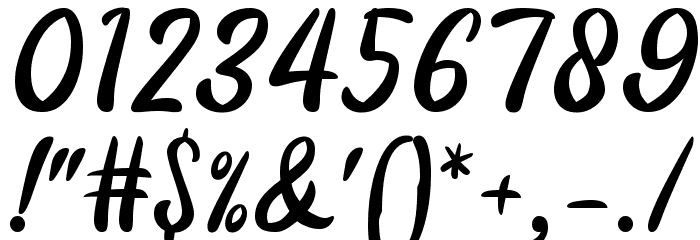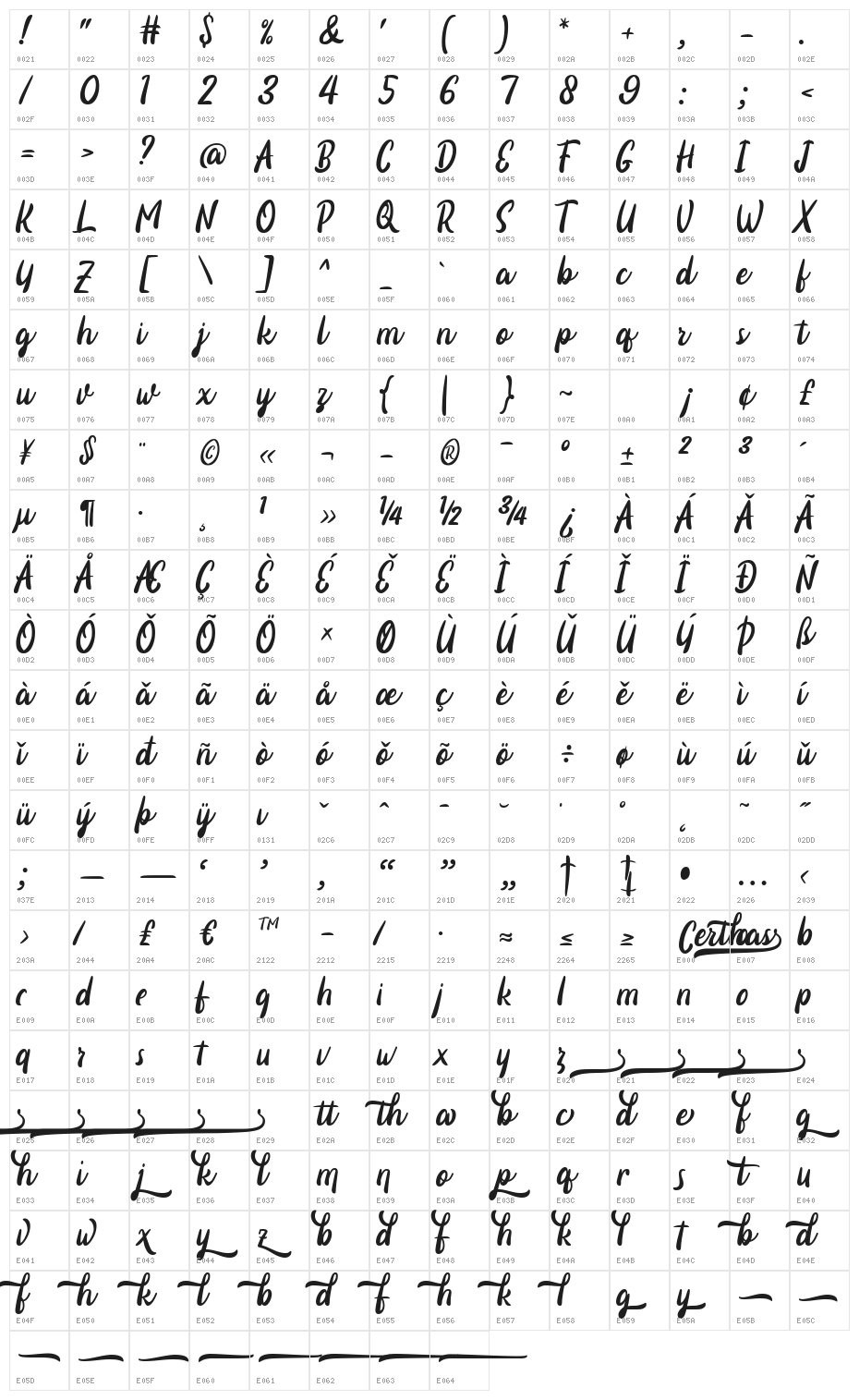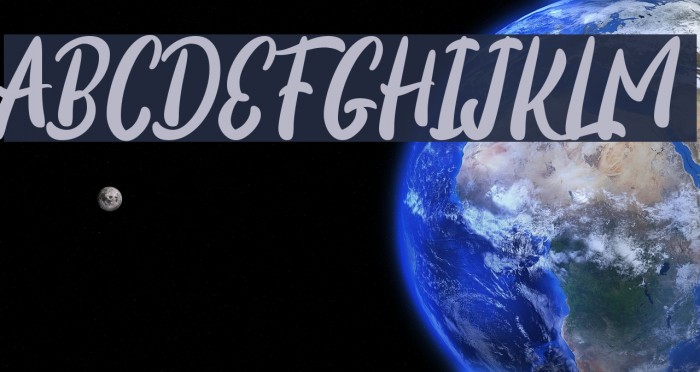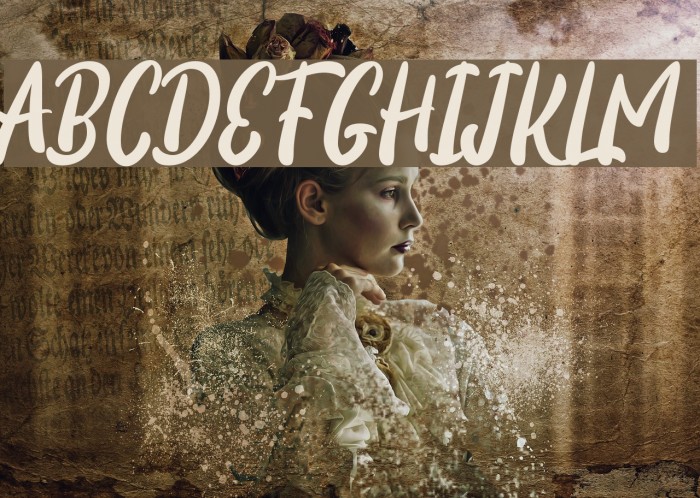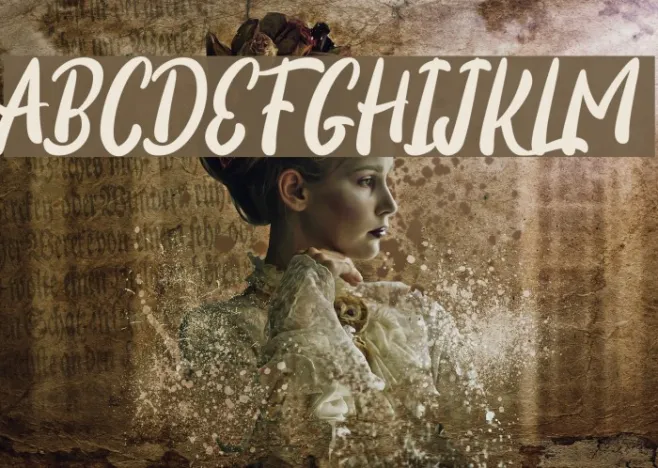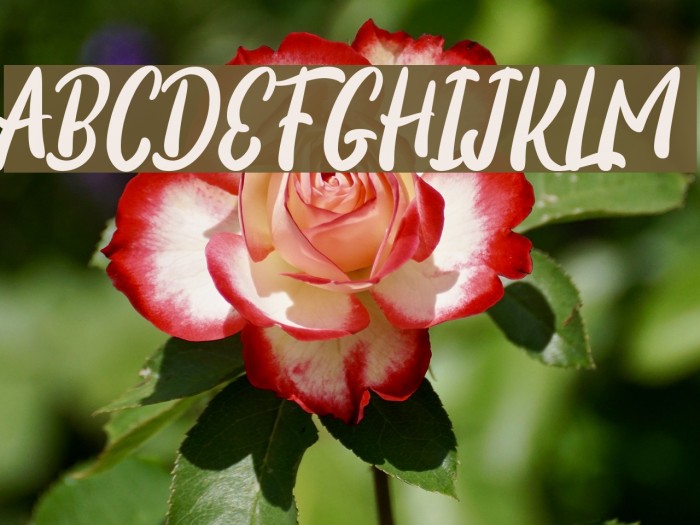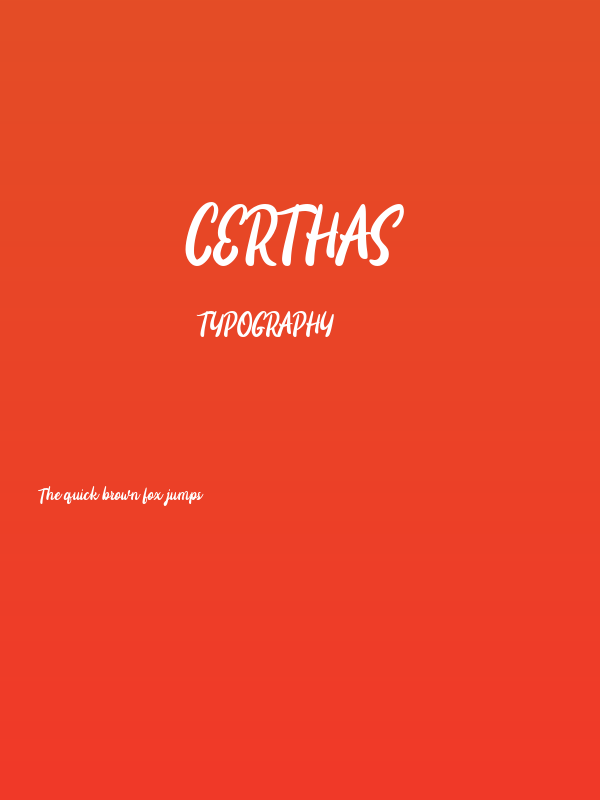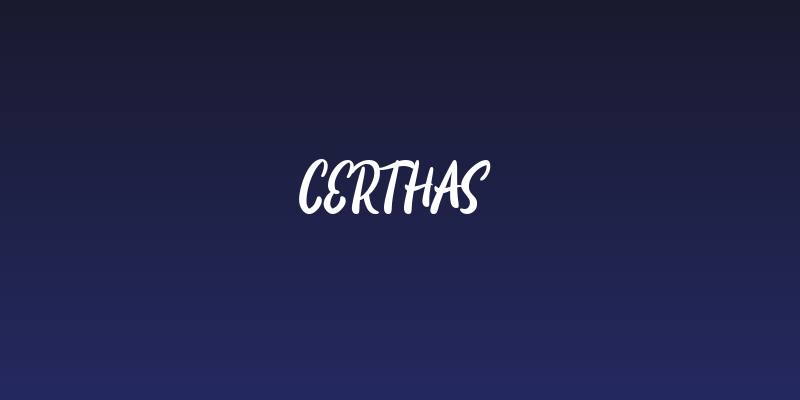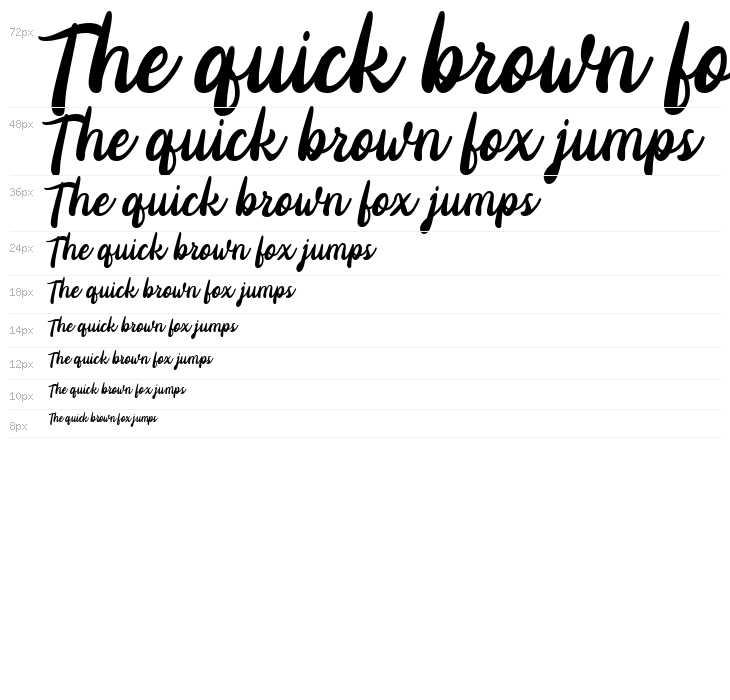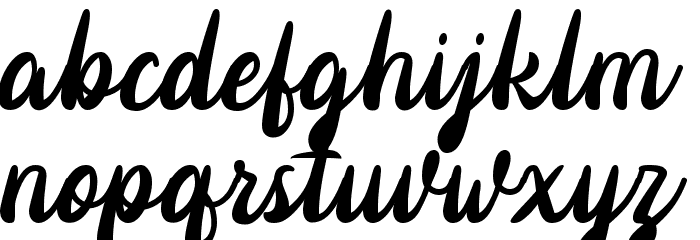
Certhas Font
Certhas Description
This font features a bold and expressive script style, characterized by its fluid and dynamic strokes. The letters are connected in a cursive manner, giving it a handwritten appearance. The uppercase letters are tall and slightly slanted, while the lowercase letters maintain a consistent flow with rounded edges. The numerals and special characters follow the same stylistic approach, ensuring uniformity across the typeface. This font exudes a sense of elegance and creativity, making it suitable for designs that require a personal touch.
Use CaseLogos, Headlines, Invitations
Proposed ProjectsIdeal for wedding invitations, greeting cards, branding projects, and social media graphics.